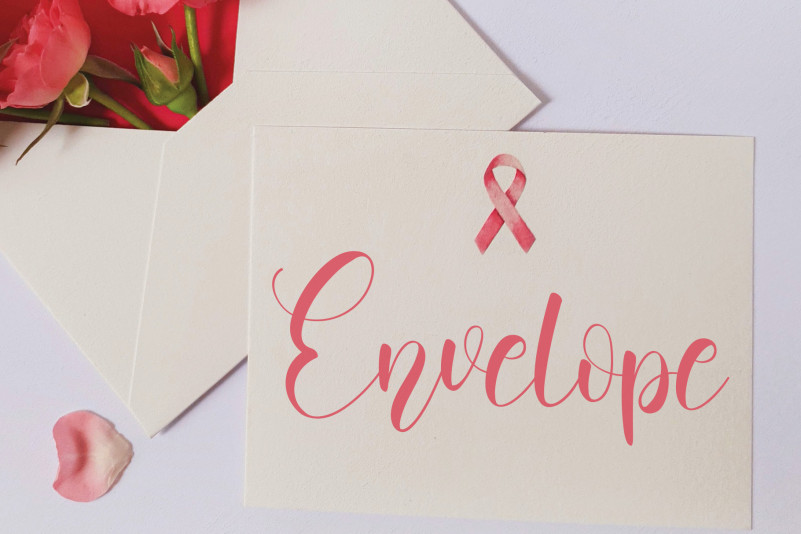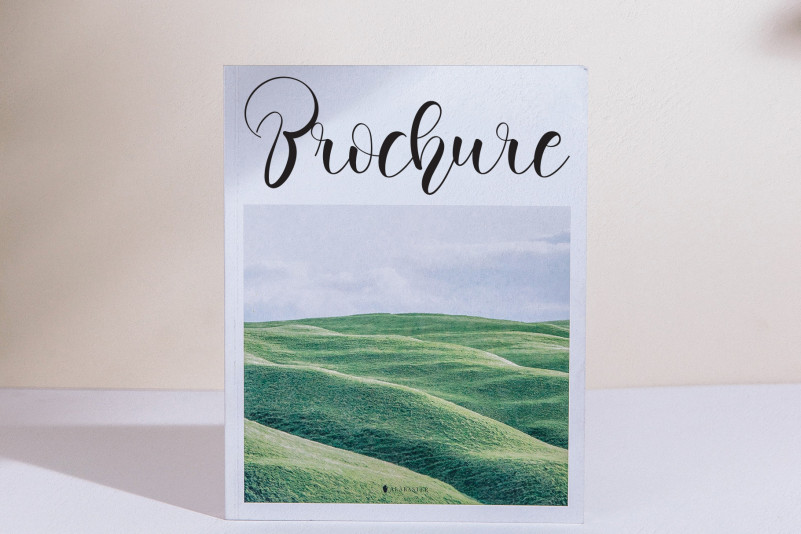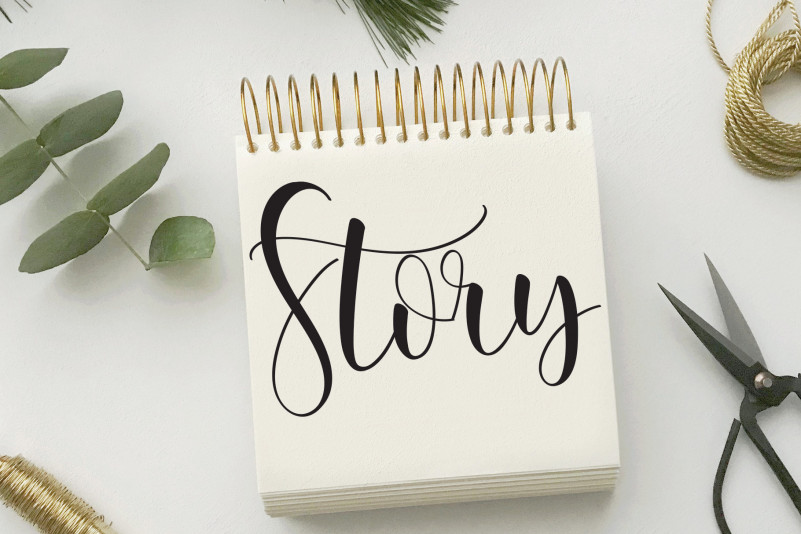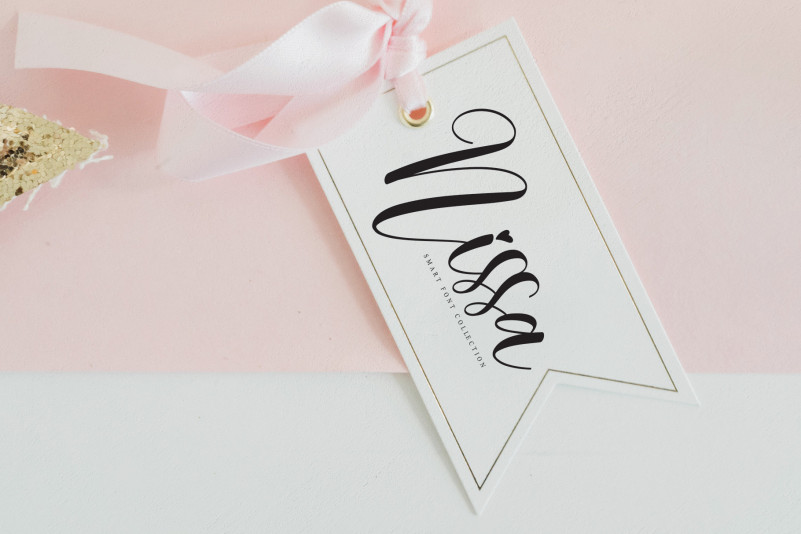
Bewitched Calligraphy Font
This is a sleek handwritten font with remarkably attractive letters and an unusual, modern look. It is perfectly suitable for logos, product packaging, letters, cards, marketing materials, books, or anything else!
the latest style letters are perfect for wall displays, wedding invitations, social media post logos, advertisements, product packaging, product designs, labels, photography, watermarks, invitations, stationery, and any project that requires taste handwriting.